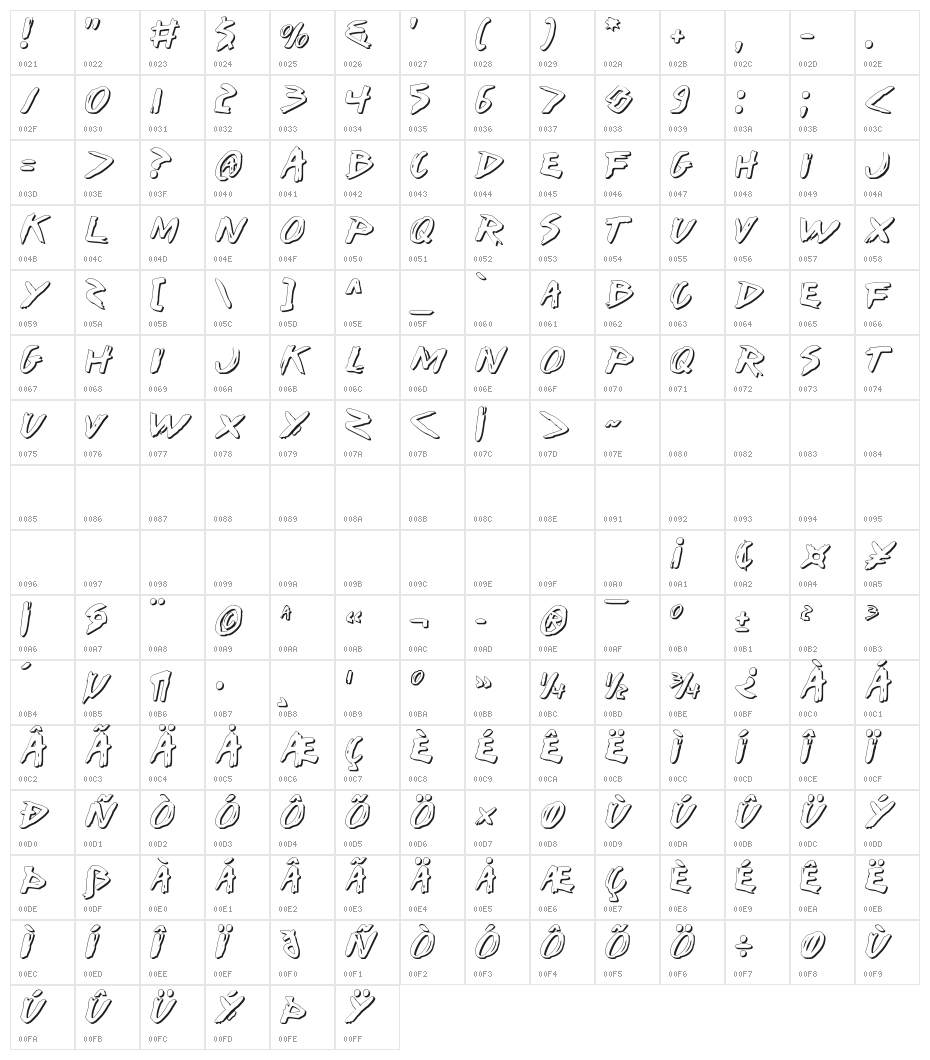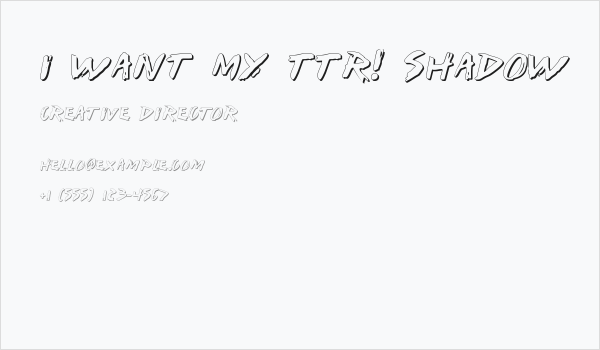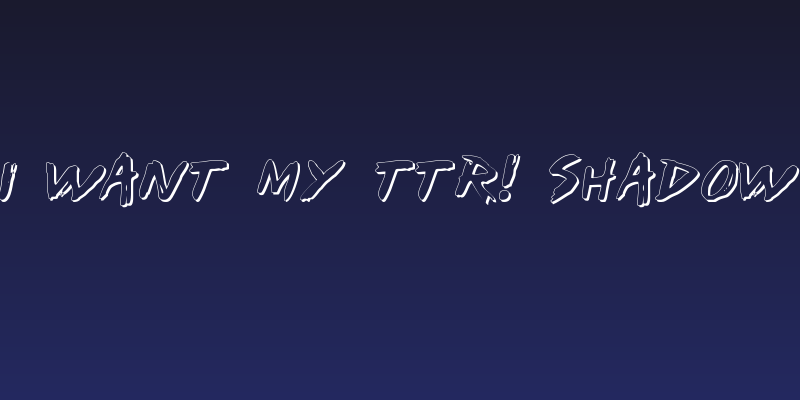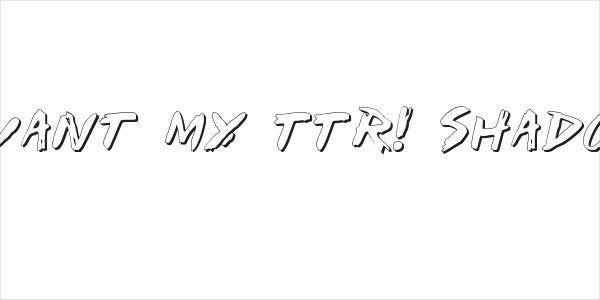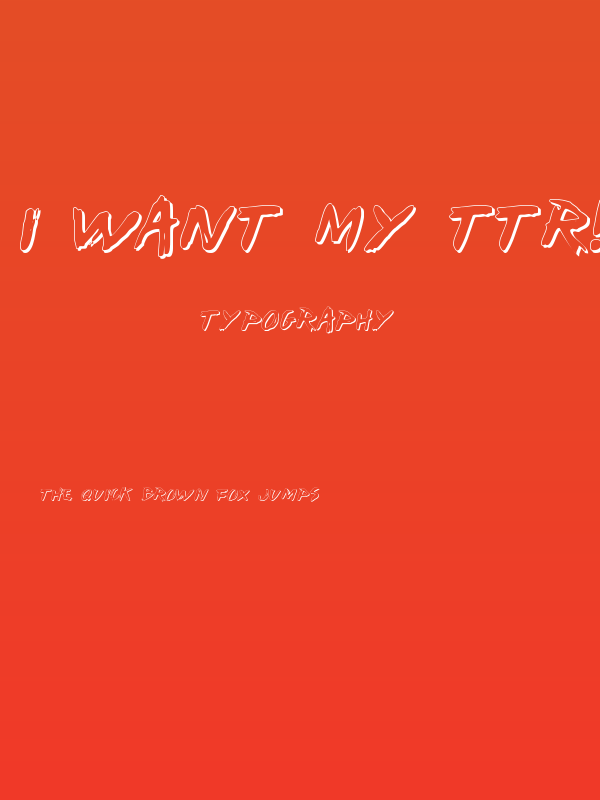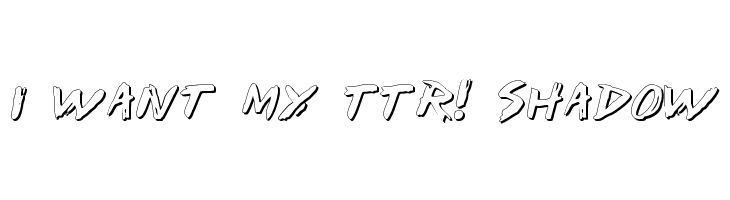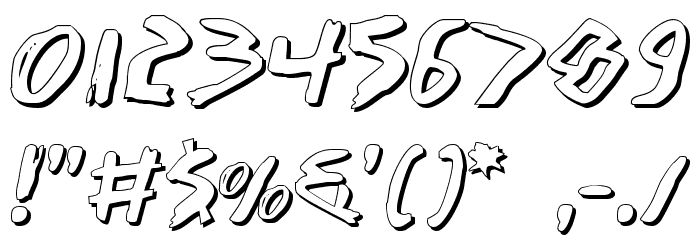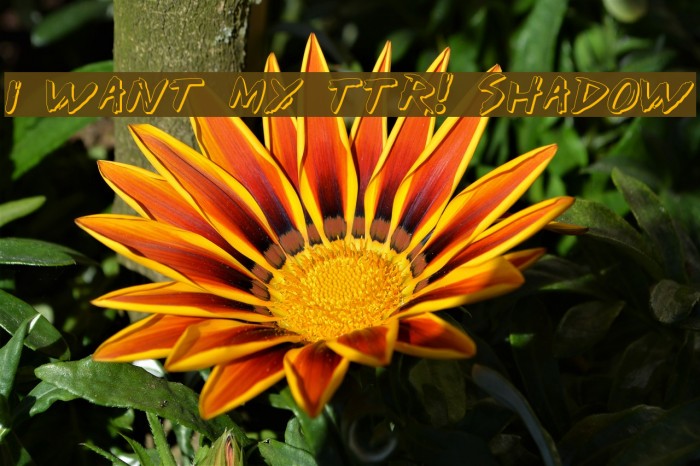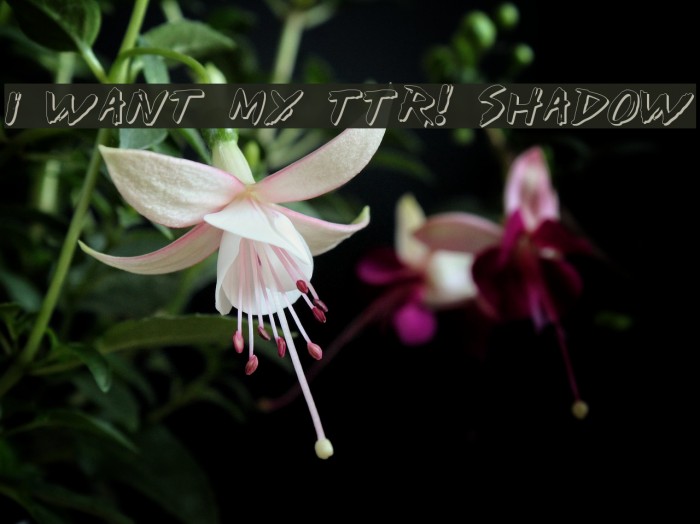
I Want My TTR! Shadow Font
I Want My TTR! Shadow Description
This font features a bold and dynamic style with a distinct shadow effect that gives it a three-dimensional appearance. The characters are designed with a hand-drawn aesthetic, showcasing irregular edges and a playful, energetic vibe. The uppercase and lowercase letters maintain a consistent style, with exaggerated curves and angles that add to the font's unique personality. Numbers and special characters are equally expressive, making this font versatile for various creative applications. The shadow effect enhances the depth and visual interest, making it suitable for eye-catching designs.
| Proposed Projects | Ideal for posters, comic books, video game graphics, and any project requiring a bold, eye-catching typeface. |